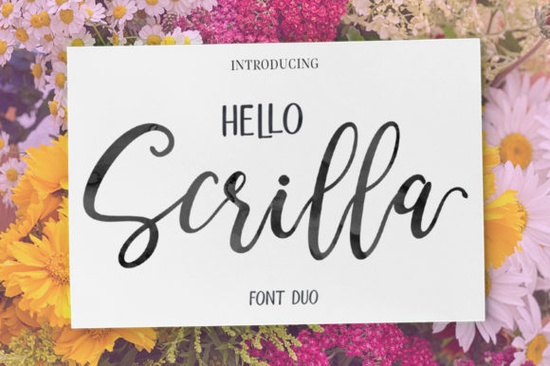
If you’ve been hunting for a script font that feels both polished and approachable, Hello Scrilla Script deserves a spot on your shortlist. This duo font pairs a flowing handwritten script with a clean sans serif, giving you two distinct looks that work together without clashing. Designers, crafters, and small business owners who need consistent, readable branding will find it a practical addition to their font library.
What exactly is Hello Scrilla Script?
Hello Scrilla Script is an elegant duo font that includes a delicate handwritten script and a matching sans serif. Both styles share the same x‑height and weight, so they blend naturally on a single design. The script leans neat and modern it avoids overly ornate flourishes and keeps legibility high even at smaller sizes. The sans serif half is understated, letting the script take center stage when you need a simple supporting typeface.
Because it comes as a duo, you don’t have to spend time hunting for a complementary font. You get a ready‑to‑pair set that handles headlines, subheadings, and short blocks of text without extra effort.
What makes this duo different from other script fonts?
Many script fonts either sacrifice readability for a decorative look or end up feeling too casual. Hello Scrilla Script strikes a balance. The handwritten strokes are consistent and controlled, with a slight bounce that keeps things friendly but never messy. The accompanying sans serif uses a geometric structure with rounded edges, which softens the overall aesthetic.
Compared to something like Whisper, which is airy and ultra‑thin, this font feels a bit more grounded. If you want a script that’s delicate but not fragile, Hello Scrilla fills that space nicely. For projects that call for a beachy, relaxed vibe, Pacific Beach might be a better fit, but when you need elegance without stiffness, this duo shines.
What design projects does it work best for?
Hello Scrilla Script adapts to a wide range of uses precisely because it isn’t overly stylized. Print‑on‑demand sellers can use it for mugs, tote bags, and t‑shirt graphics without worrying about thin upstrokes breaking during printing. Crafters who make wedding signage or party decor will appreciate how the script adds a hand‑lettered touch without looking sloppy.
It’s equally useful for digital branding social media templates, website headers, email signatures, and logo concepts. Small businesses often need a font that looks professional but still personal, and this duo delivers. For wedding stationery specifically, many designers also look at Wedding Signature, which offers a more formal script. Hello Scrilla is slightly more relaxed and works well for bridal showers, save‑the‑dates, and thank‑you cards where a modern touch is preferred.
How does the script and sans serif combination work in practice?
The duo is designed so you can mix the two fonts on the same line or use them as a clear visual hierarchy. For example, you might set a product name in the script and the tagline or description in the sans serif. The shared baseline and consistent letter spacing mean the transition feels seamless.
Using both together also helps you maintain a clean look while still keeping the warmth of a handwritten font. If you want a similar dual‑font setup but with a more contemporary edge, Camaraderie is another duo worth exploring it pairs a bold script with a modern sans and works well for edgier branding. Hello Scrilla stays firmly in the elegant, neat camp, making it better for projects that need a softer impression.
Is Hello Scrilla Script easy to read at small sizes?
Yes, and that’s one of its strongest points. The script’s letters remain clear even at 12–14pt, which is important for product descriptions, card inserts, or website body text snippets. The connections between letters are intentional but not too tight, so you won’t see letters blending together. The sans serif stays crisp down to very small sizes, making it a safe choice for secondary information that needs to be functional.
If you’ve ever struggled with script fonts that lose legibility when scaled down, this one handles it well. The clean letterforms and modest ascenders and descenders mean you can use it in longer phrases without eye fatigue.